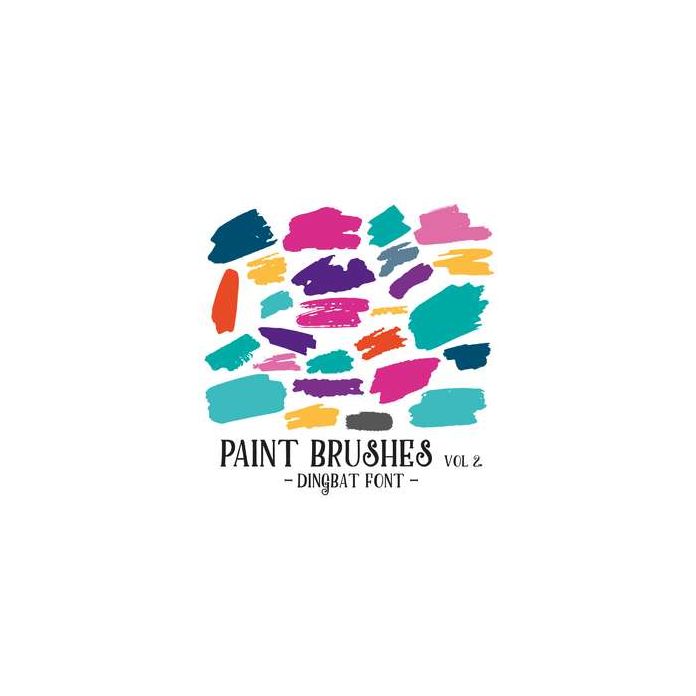
paint brushes vol 2 dingbat font
Paint Brushes Vol 2 Dingbat Font with 26 different brush styles, all allocated to upper and lowercase letters - simply type to use!